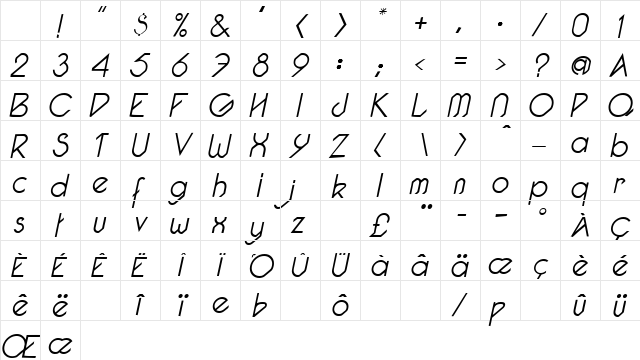
Pacotilleital light
Style: light
Design Context for Pacotilleital
Pacotilleital is a composed and adaptable typeface that performs quietly and consistently across a wide range of design contexts. Its slender proportions lend an understated elegance to any composition.